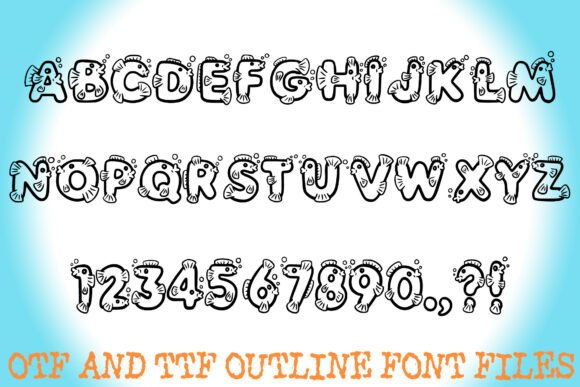
Get Ready to Dive into Fun with the Bubble Fish Cartoon Font
Have you ever stared at a blank canvas, wondering how to bring a smile to the faces of your young audience? For designers, it’s a challenge we’ve all faced. But what if I told you there’s a way to add a splash of aquatic charm to your projects and make them irresistible to kids? It’s time to introduce the Bubble Fish Cartoon Font, a delightful typeface that’s sure to make a splash!
This adorable font brings the underwater world directly to your projects, complete with chunky, rounded letters designed to look like friendly fish, complete with fins, tails, and little floating air bubbles. Whether you’re creating educational materials, birthday invitations, or playful branding, the Bubble Fish Cartoon Font is the perfect addition to your design arsenal. Its clear, bold shape ensures high visibility, making it an excellent display font for headers, posters, and apparel.
Bubble Fish Cartoon Font Key Features
- Unique Characteristics: The font features a playful, cartoon-like design with rounded edges and bold lines, making it perfect for children’s books, educational materials, and advertising
Bubble Fish Cartoon Font Review
Overall, I think Bubble Fish Cartoon Font has a lot of potential, but it also has some limitations. Let’s dive in and see what I mean!
- Unique and playful design: The font has a fun, whimsical feel that would be perfect for children’s books, party invitations, or any other project that needs a lighthearted touch.
- Customizable: The font comes with a range of options for customizing the look and feel, from color to size to font style.
- Easy to use: The font is relatively easy to use, even for designers who are new to working with custom fonts.
- Limited legibility: While the font is fun to look at, it can be a bit difficult to read, especially in larger blocks of text.
- Not suitable for formal projects: The font’s playful design makes it unsuitable for formal projects, such as business reports or academic papers.
- Not scalable: The font may not be suitable for large-scale use, such as billboards or other high-resolution displays.
While Bubble Fish Cartoon Font has some limitations, I think it’s a great choice for the right projects. With a little creativity and careful planning, you can use this font to create some truly unique and engaging designs. Just be sure to use it wisely and consider the needs of your project before making a decision.
The Bubble Fish Cartoon Font is perfect for creating playful and whimsical designs, such as:
- Children’s books and educational materials.
- Marketing materials for kids’ products and services.
- Party invitations and decorations.
- Web design and social media graphics.